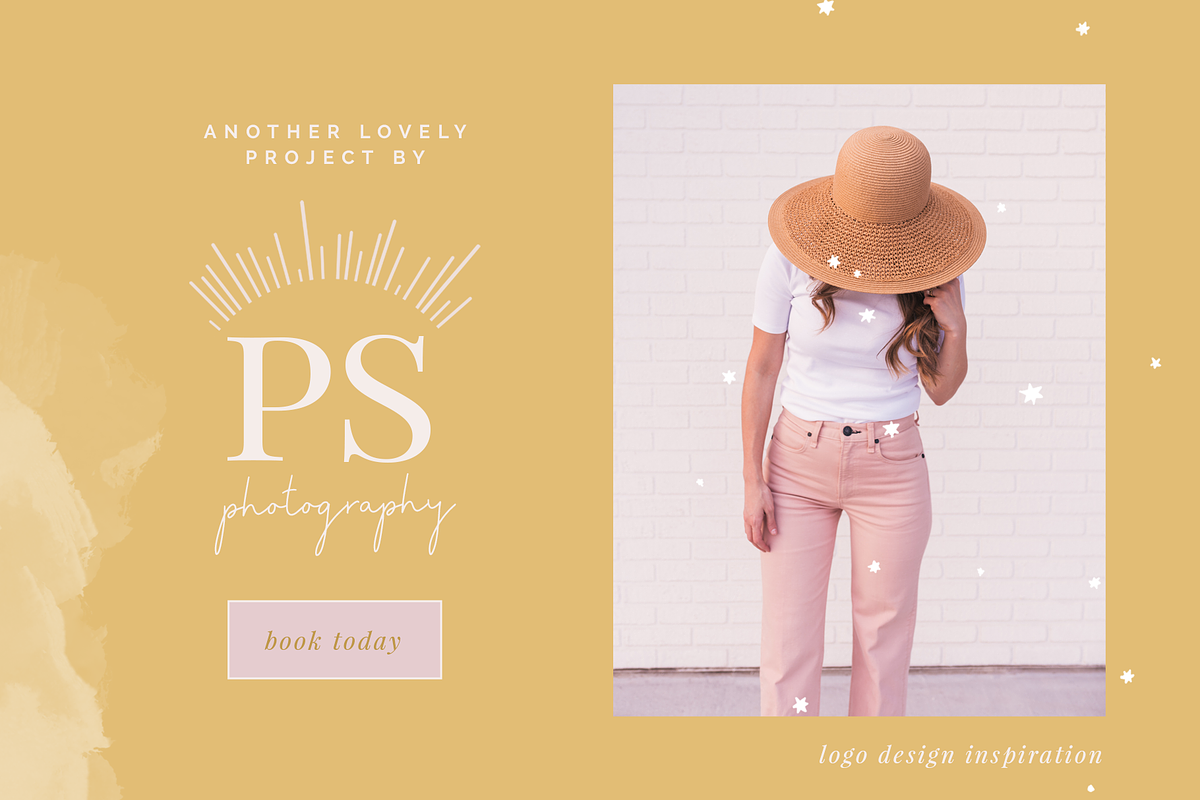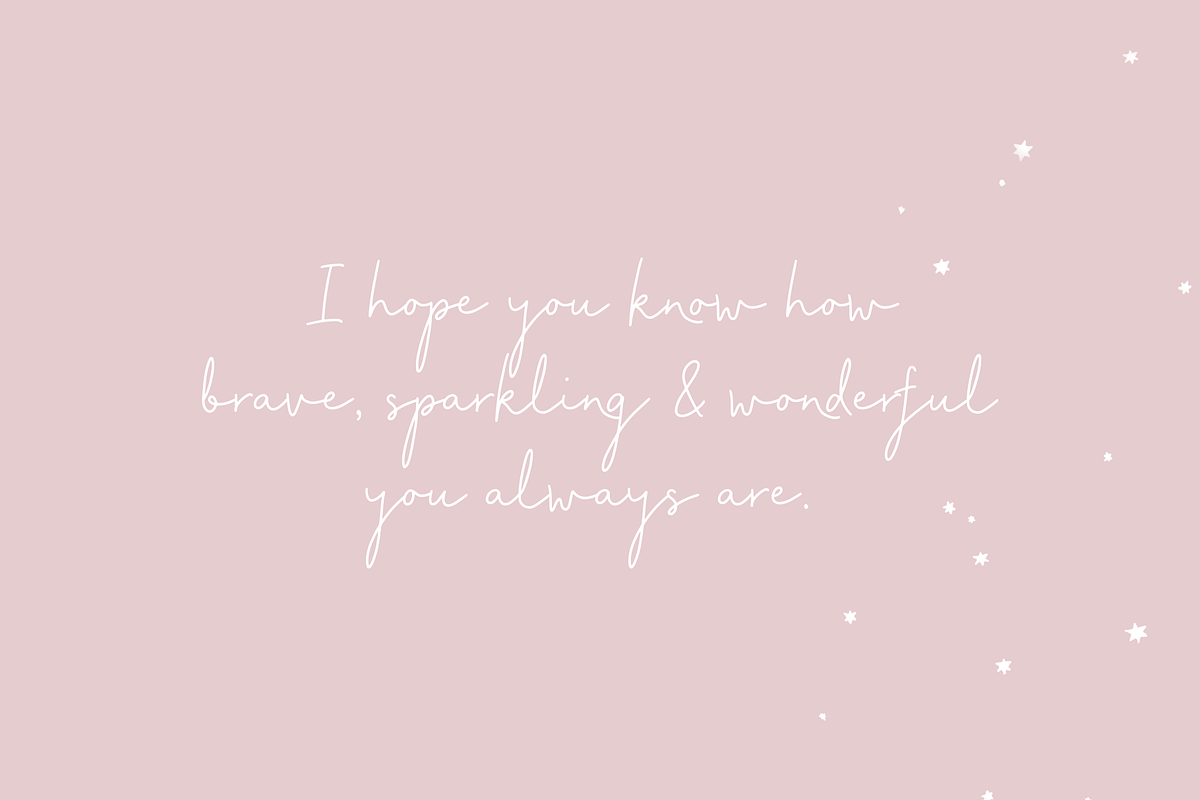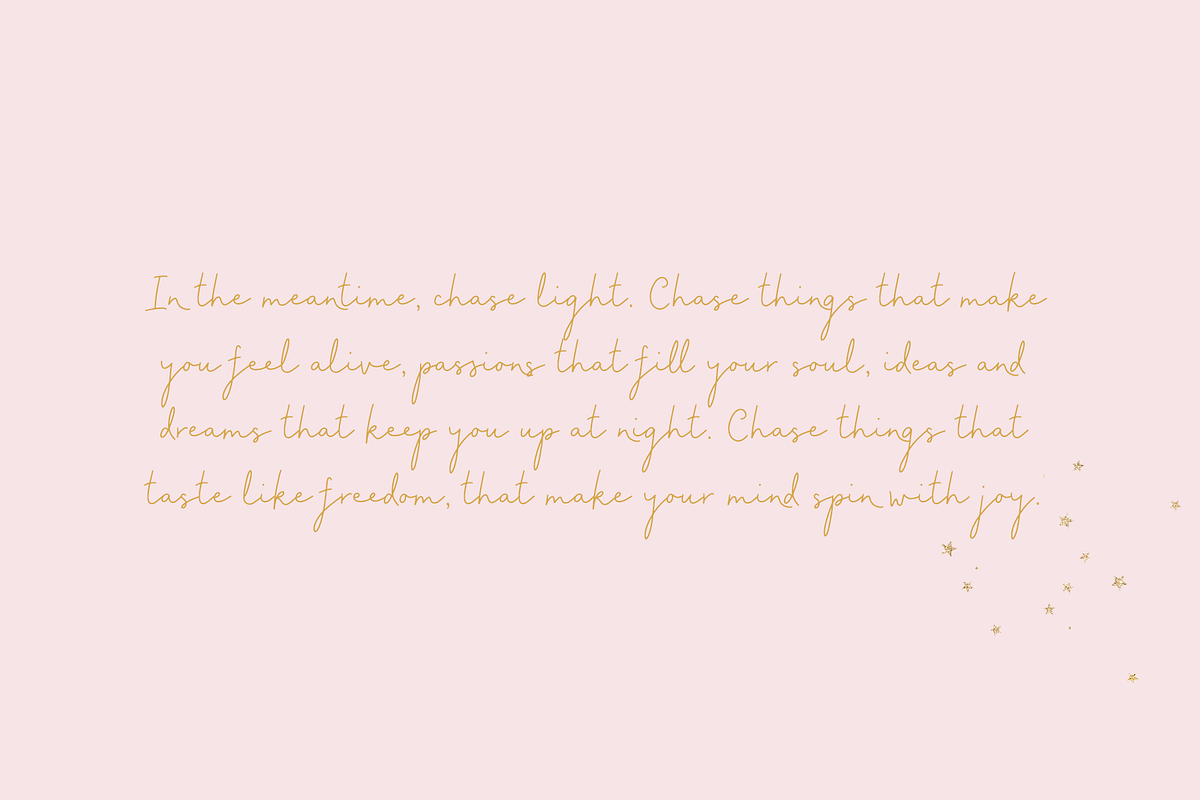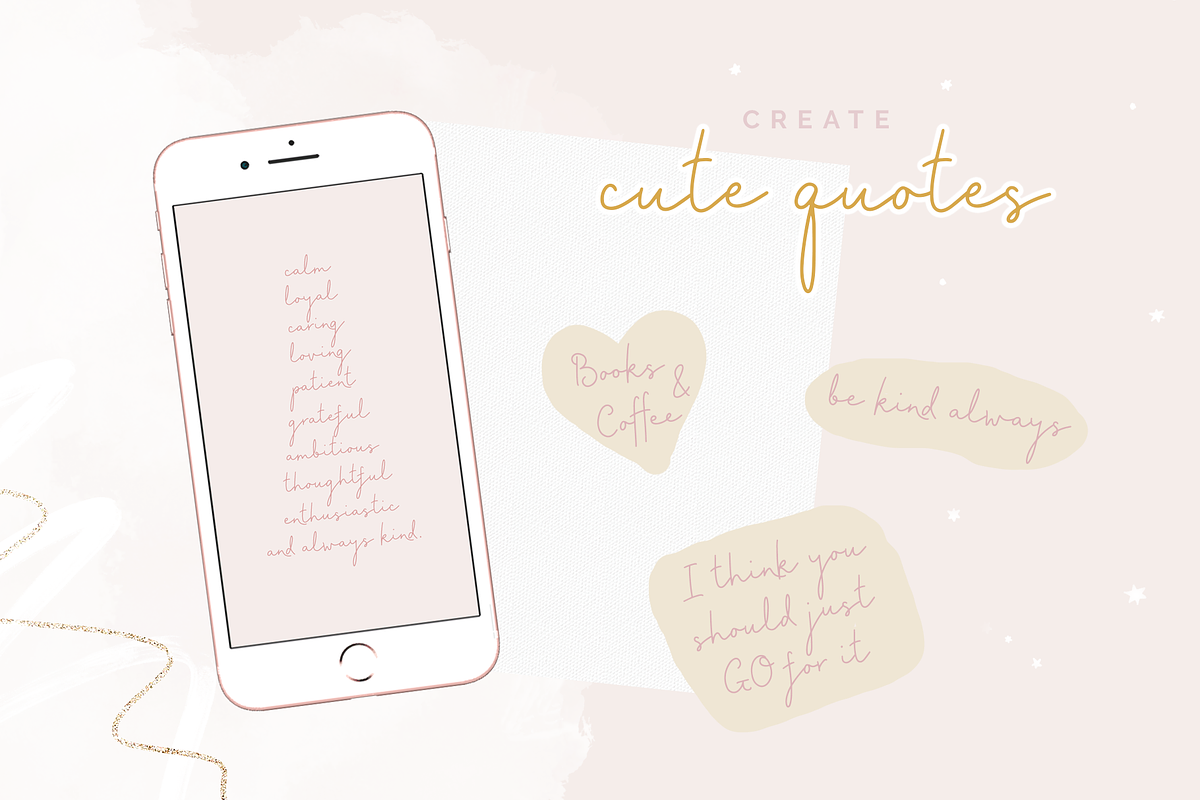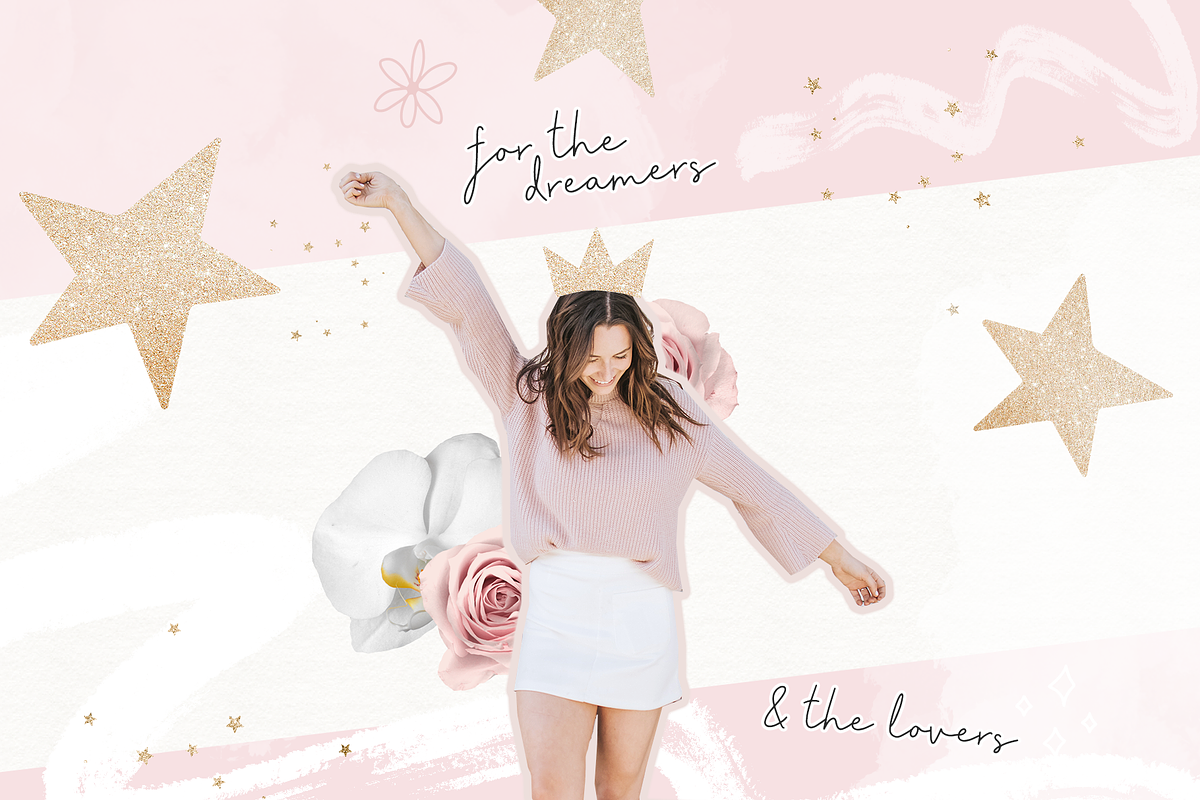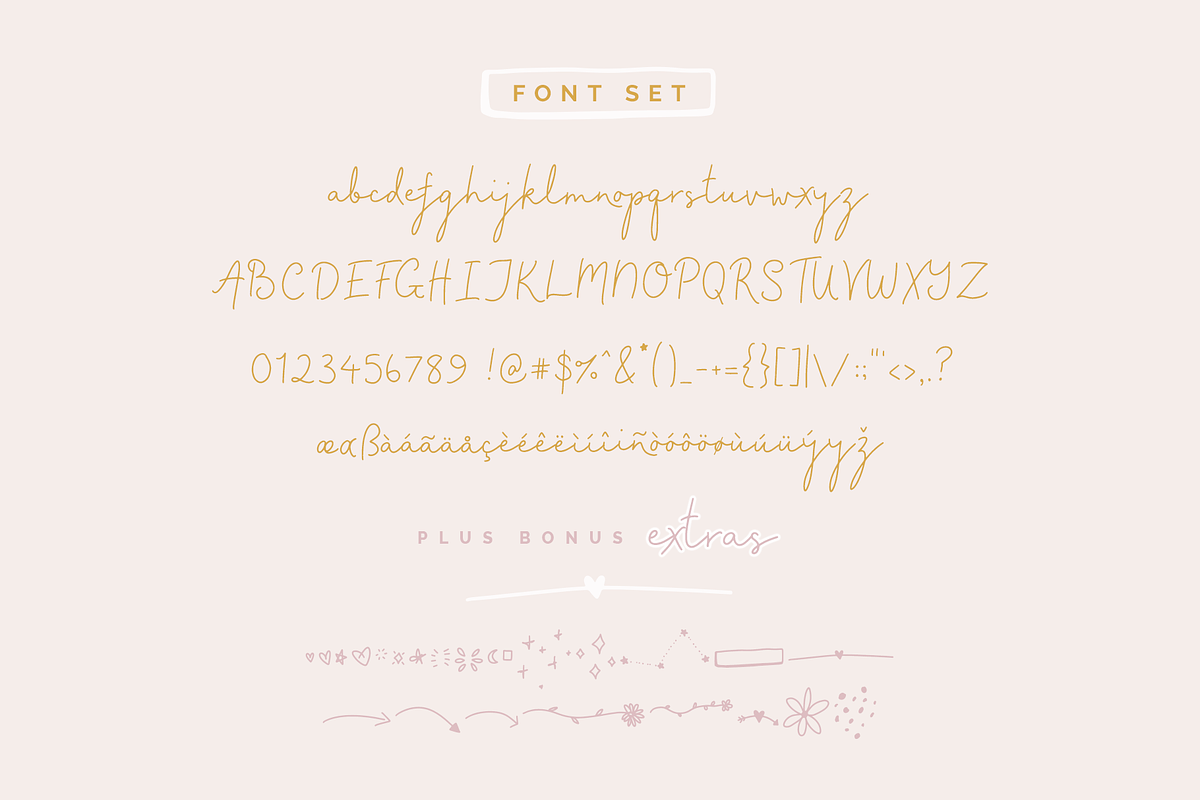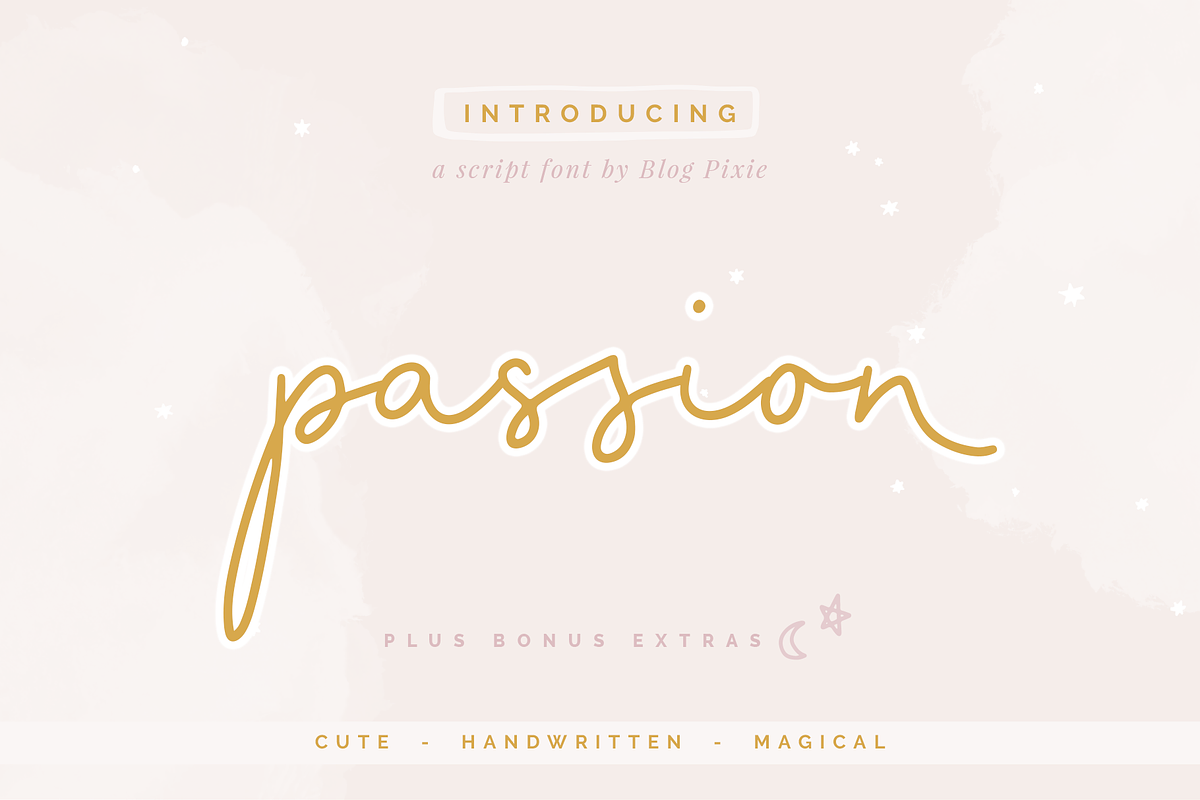
Passion Script Font
Passion script font by Blog Pixie is a cute, magical font with bonus extras!
Perfect for creating cute quotes or adding a whimsical touch to a project, this handwritten font looks wonderful in an array of colors or even with a white outer glow to really make it pop.
Use Passion script for quotes, collages, print design, logos, magazine, eBooks, blogging and Instagram.
The Extras font includes a selection of clipart to use when typing from lowercase a to z.
Passion Script Font by Design Pixie fits naturally into Branding, posters, packaging, typography.